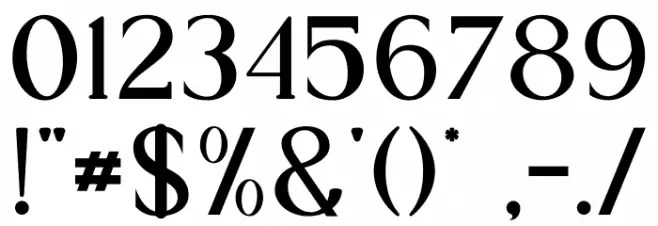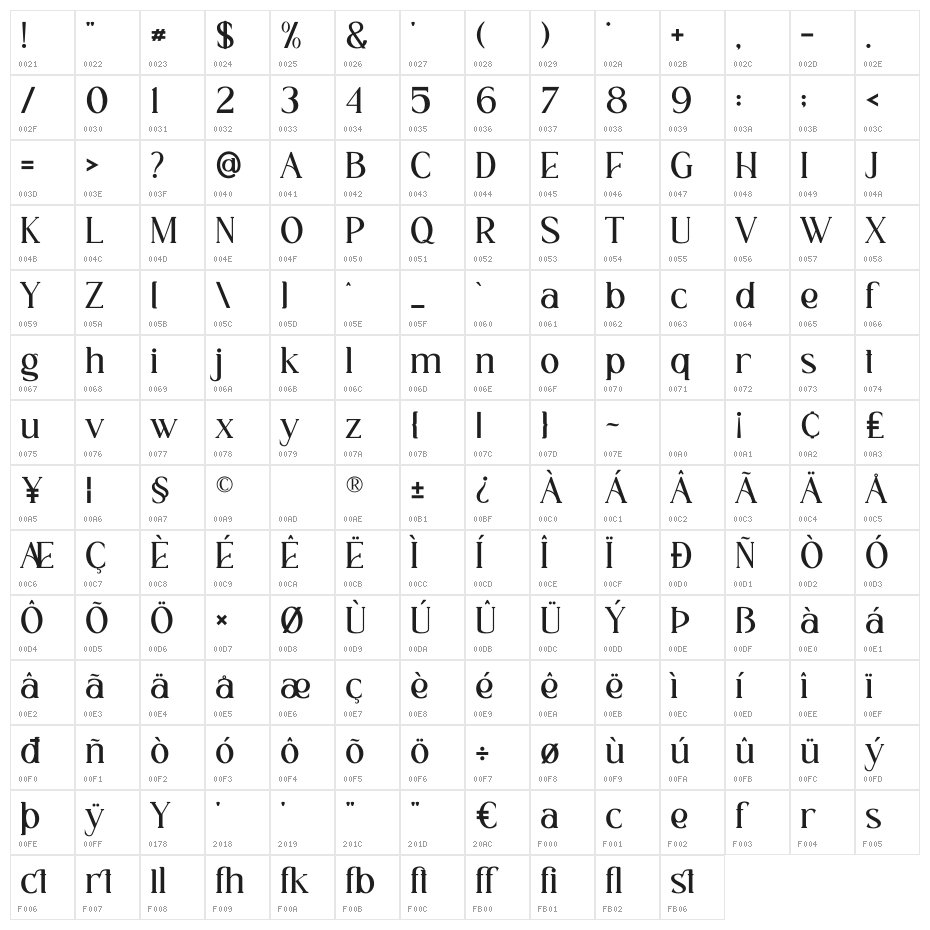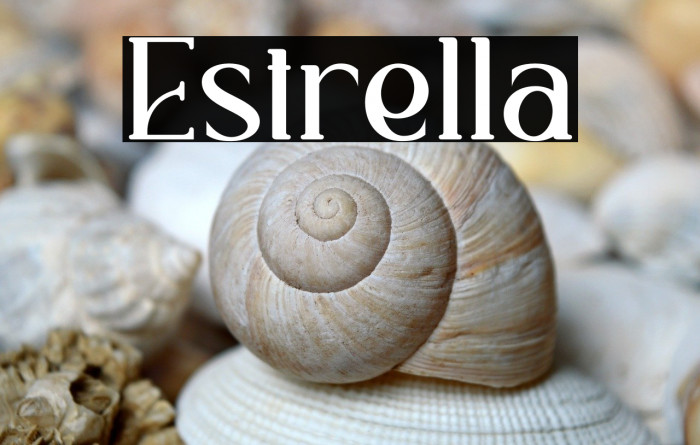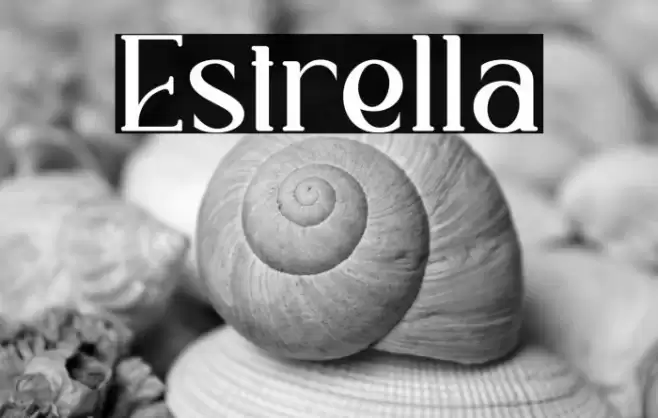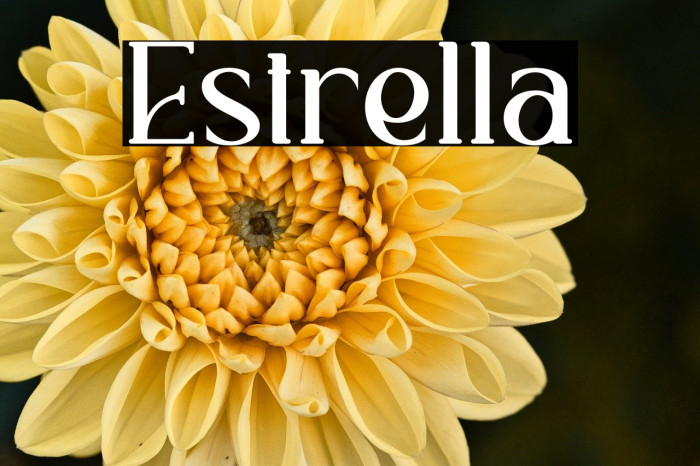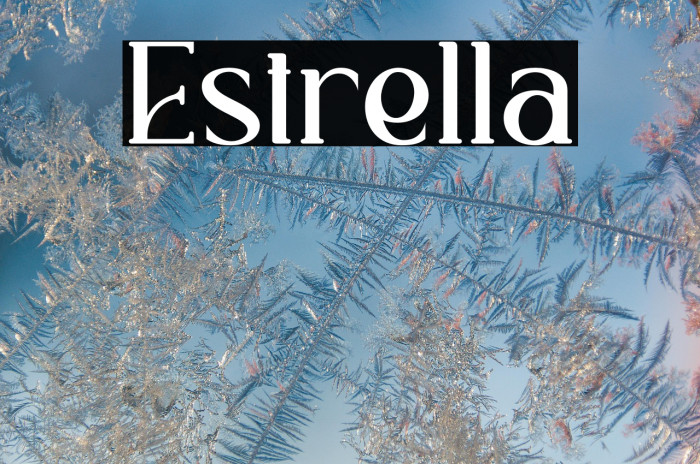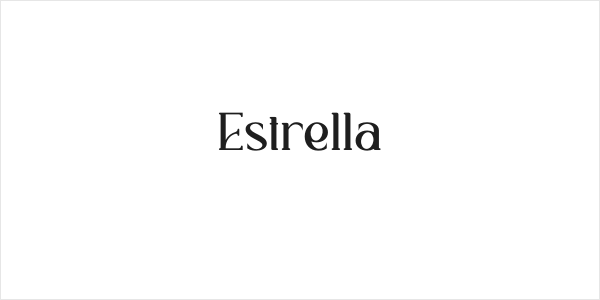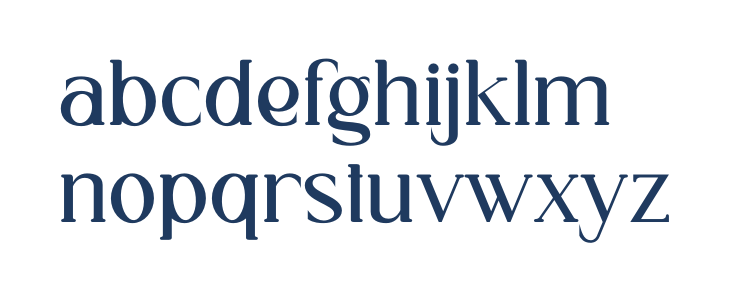
Estrella Font
Estrella Description
This font features a classic serif design with elegant and refined strokes. The uppercase letters are tall and commanding, with distinct serifs that add a touch of sophistication. The lowercase letters maintain a consistent style, offering a harmonious balance between the characters. The numerals are clear and easy to read, making them suitable for various applications. Special characters are well-integrated, maintaining the overall aesthetic of the font. The design is versatile, suitable for both formal and creative projects, providing a timeless appeal.